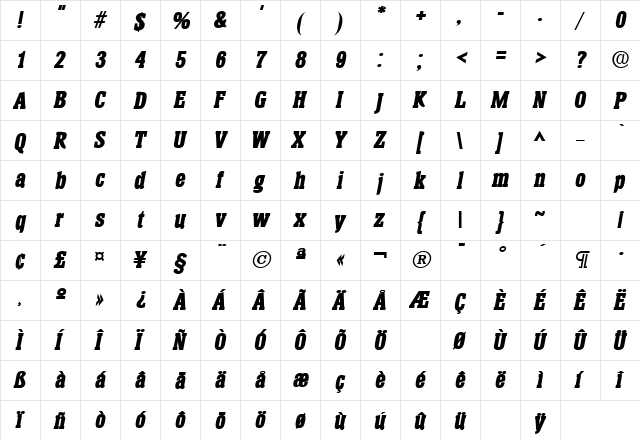
HeliumLH Bold Italic Font Preview
HeliumLH Bold Italic
Design Context for HeliumLH Typeface
HeliumLH offers clean, dependable letterforms without strong stylistic allegiance, making it a practical choice for designers who need flexibility. The slanted form adds forward momentum and visual energy. The heavy weight commands attention and anchors typographic hierarchies.